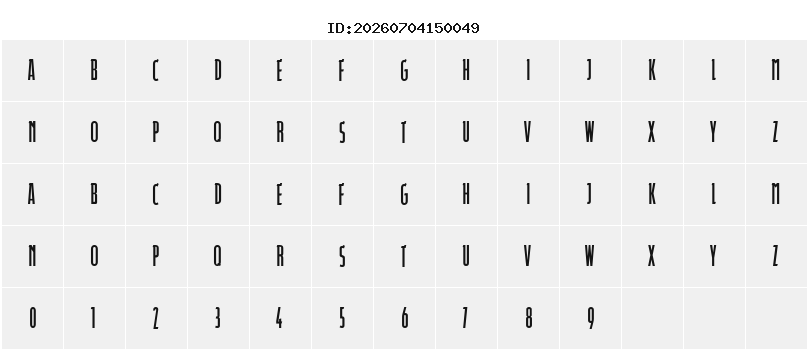
• Font Name: Durango-Compressed
• Designer: SoftMaker Software GmbH
About Durango-Compressed.ttf
Durango-Compressed.ttf is a modern, elegant sans-serif font designed for ultimate readability and visual harmony. Perfect for branding, headlines, web design, and print materials.